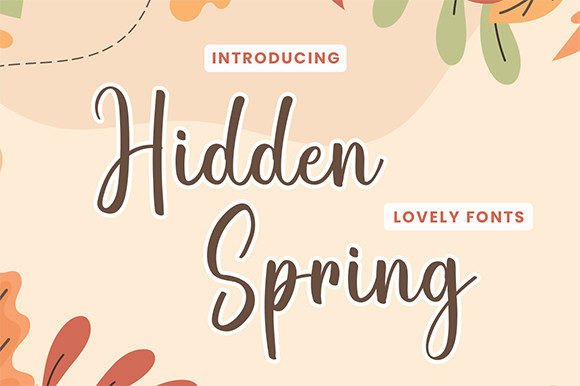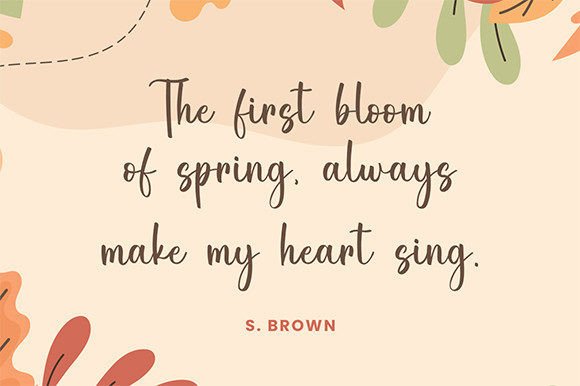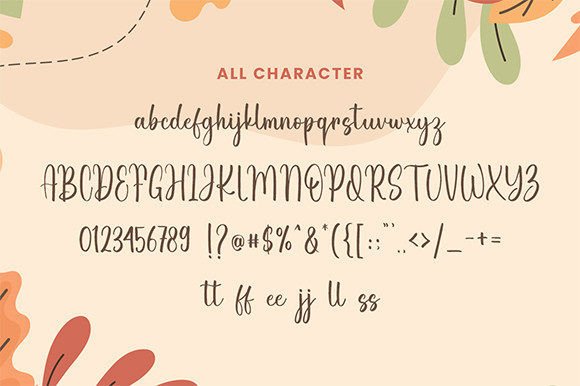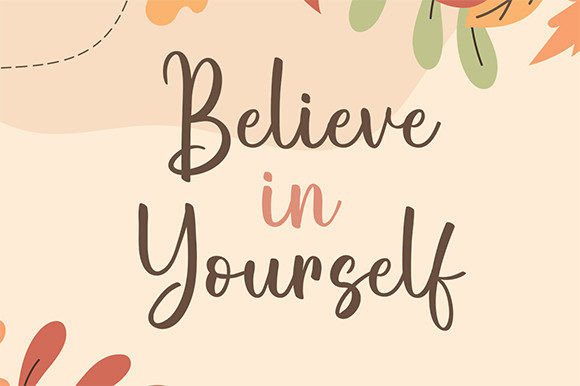
About Hidden Spring
Hidden Spring is a cute handwriting and colorful display font. It embodies playfulness and authenticity and
is the perfect choice for amazing project.